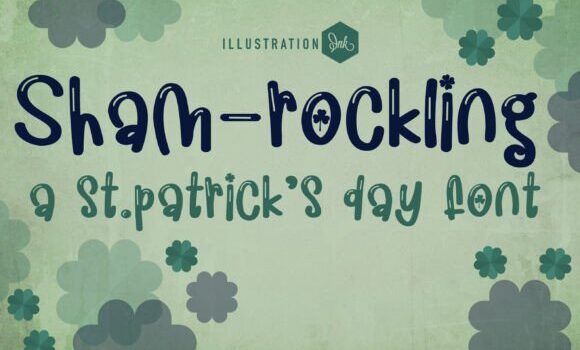
Sham-rockling Font – Free Download Introduction to Sham-rockling Font Sham-rockling is a hand-crafted sans serif is bouncy, fun, and features clover throughout. 📸 Preview Gallery 6 images 📌 Product Name Sham-rockling Font 👤 Author Illustration Ink 📂 Category Explore ⬇️